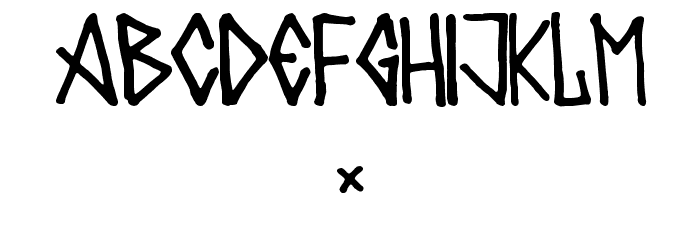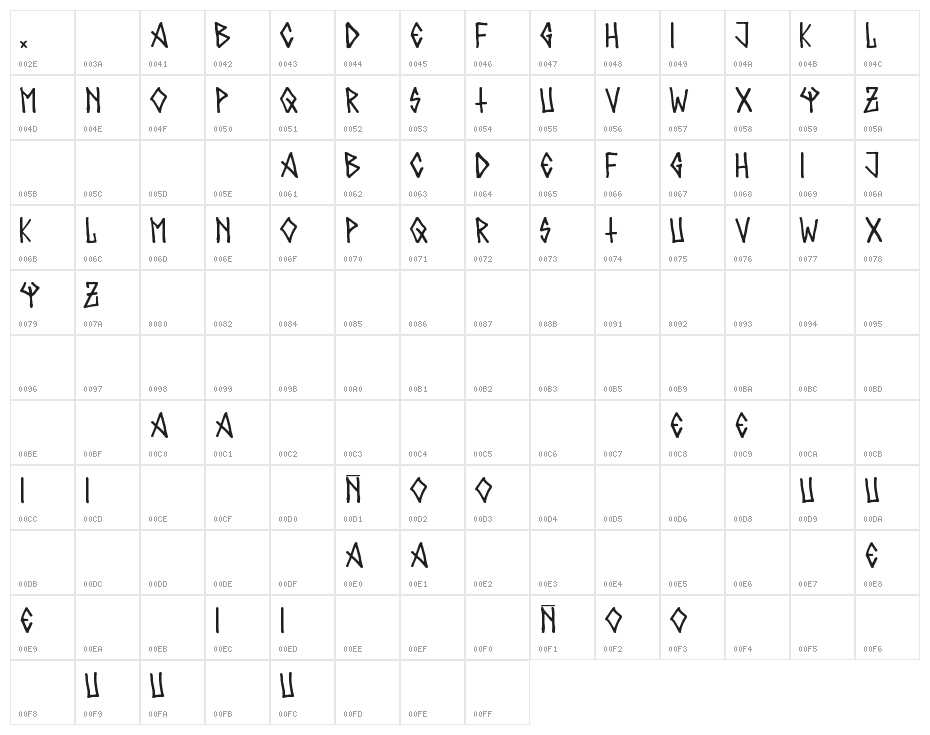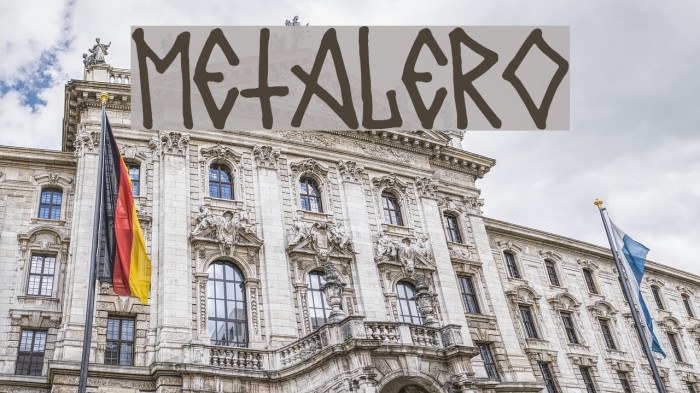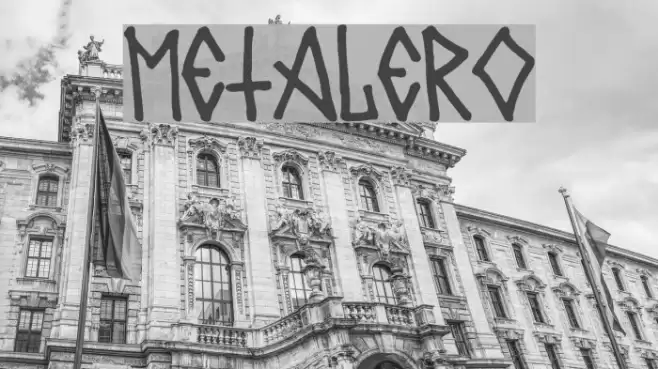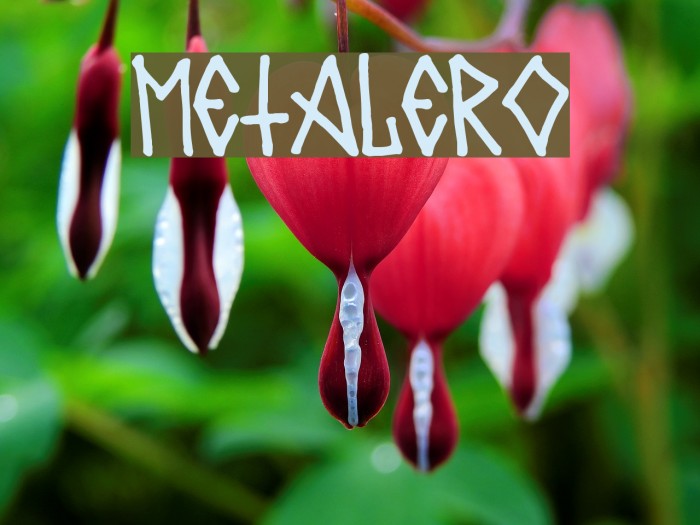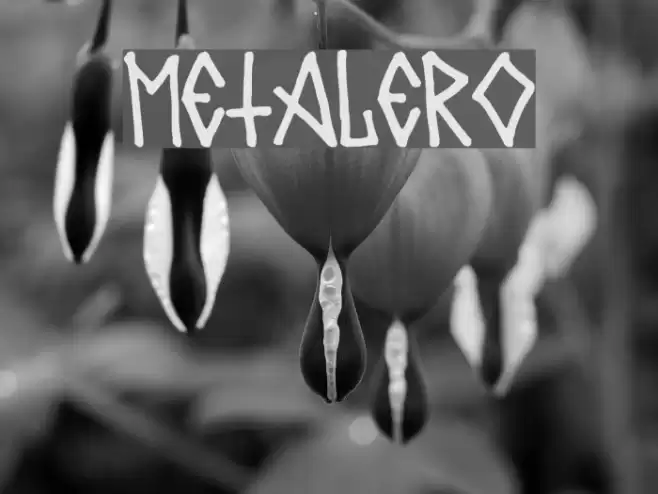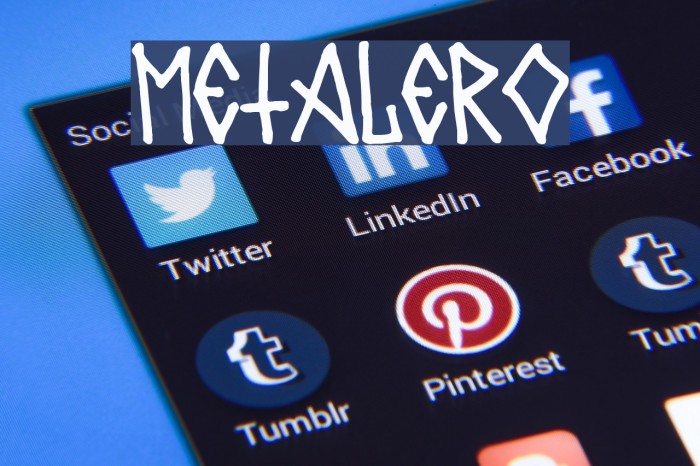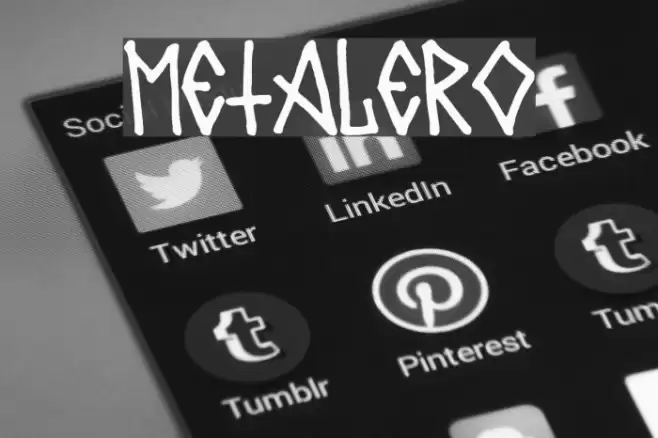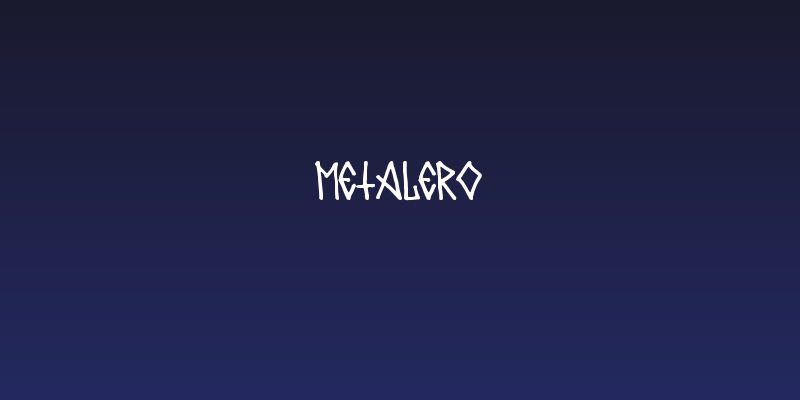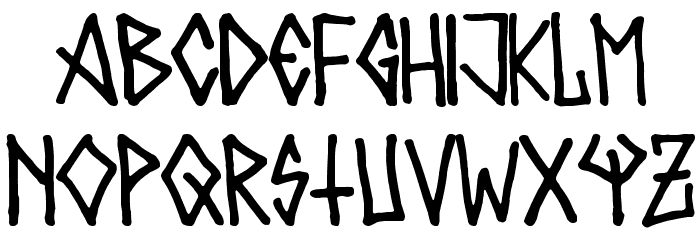
Metalero80 Font
Metalero80 Description
This font features a bold and edgy design with sharp, angular lines that evoke a sense of rebellion and strength. The characters are uniformly thick, giving them a strong presence on the page. The uppercase letters are particularly striking, with unique shapes that make each character stand out. The font has a hand-drawn quality, adding a raw and authentic feel. The overall style is reminiscent of heavy metal and rock aesthetics, making it ideal for projects that require a bold and impactful look.
| Use Case | Logos, Headlines |
| Proposed Projects | Ideal for music album covers, band logos, posters, and merchandise related to rock or metal genres. |